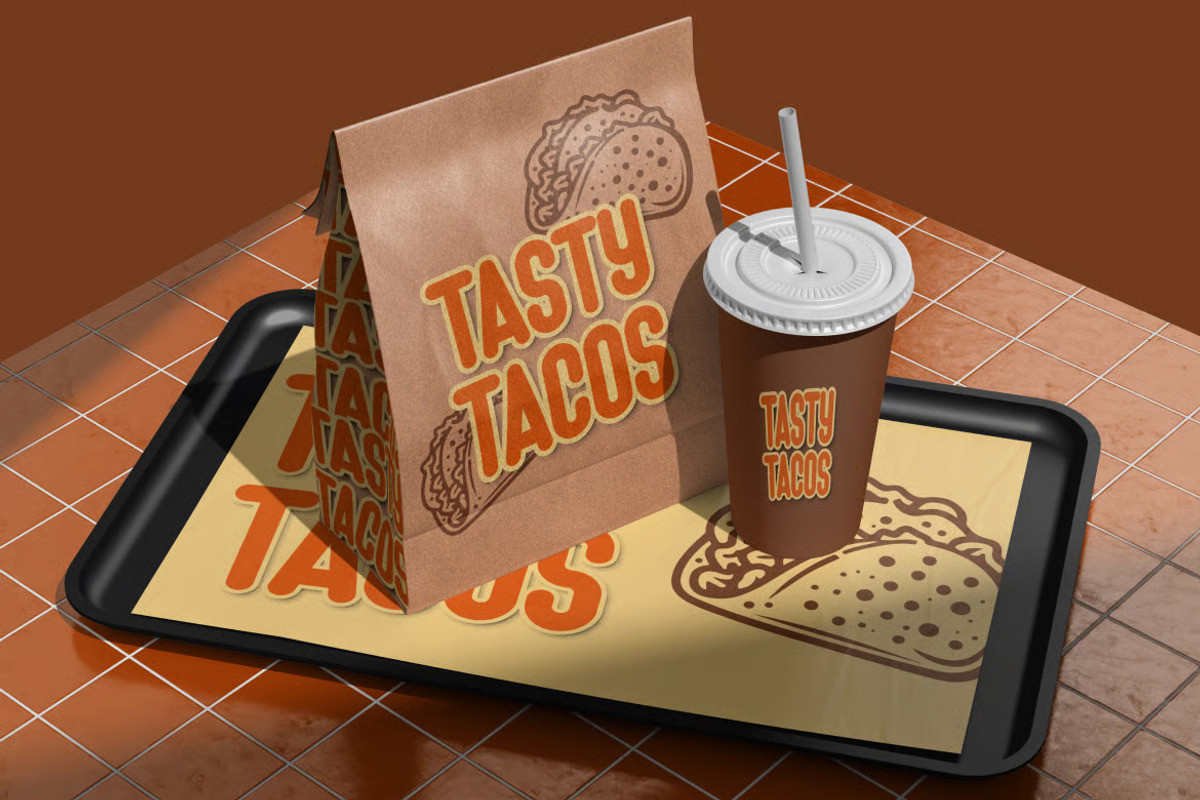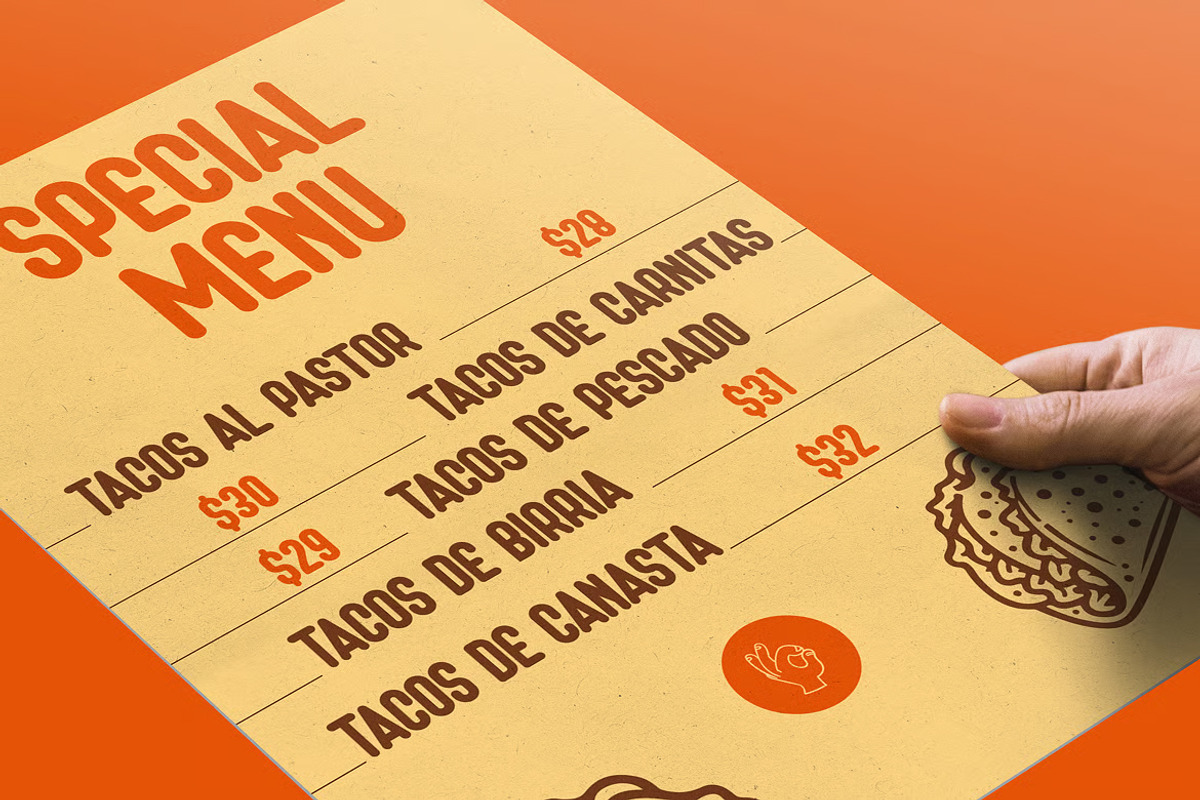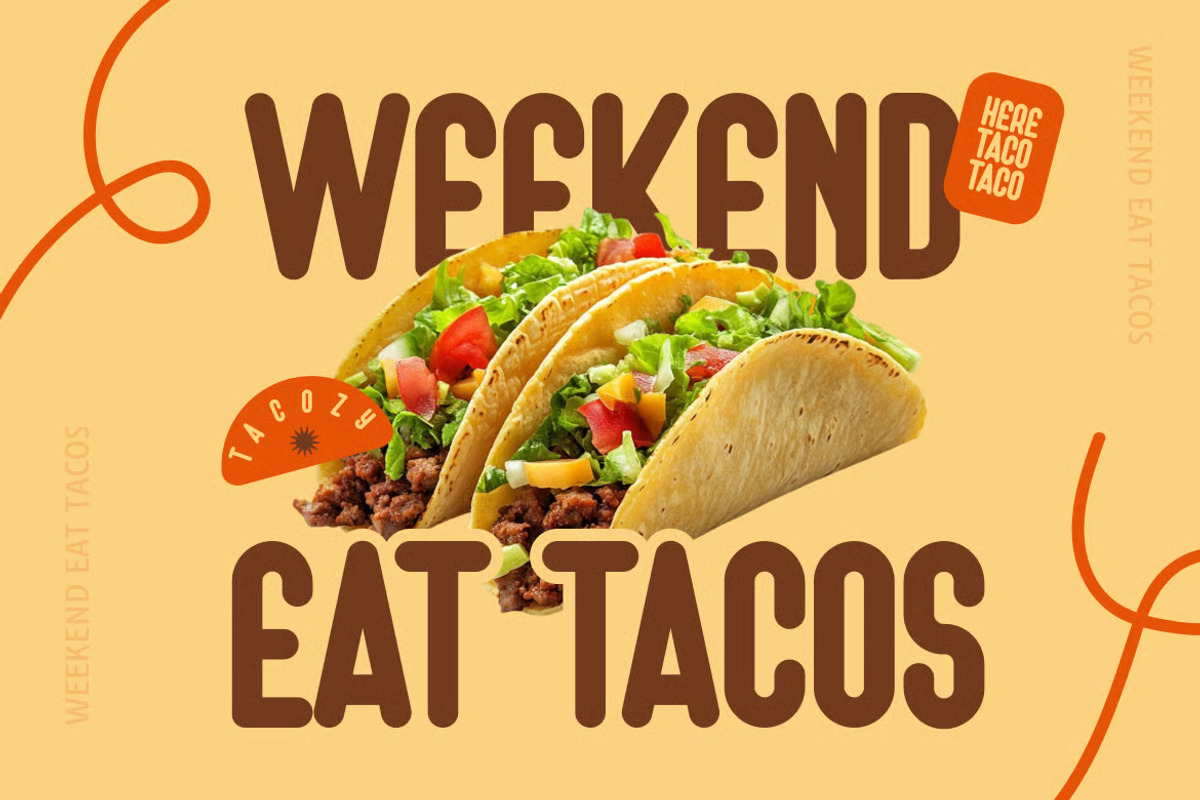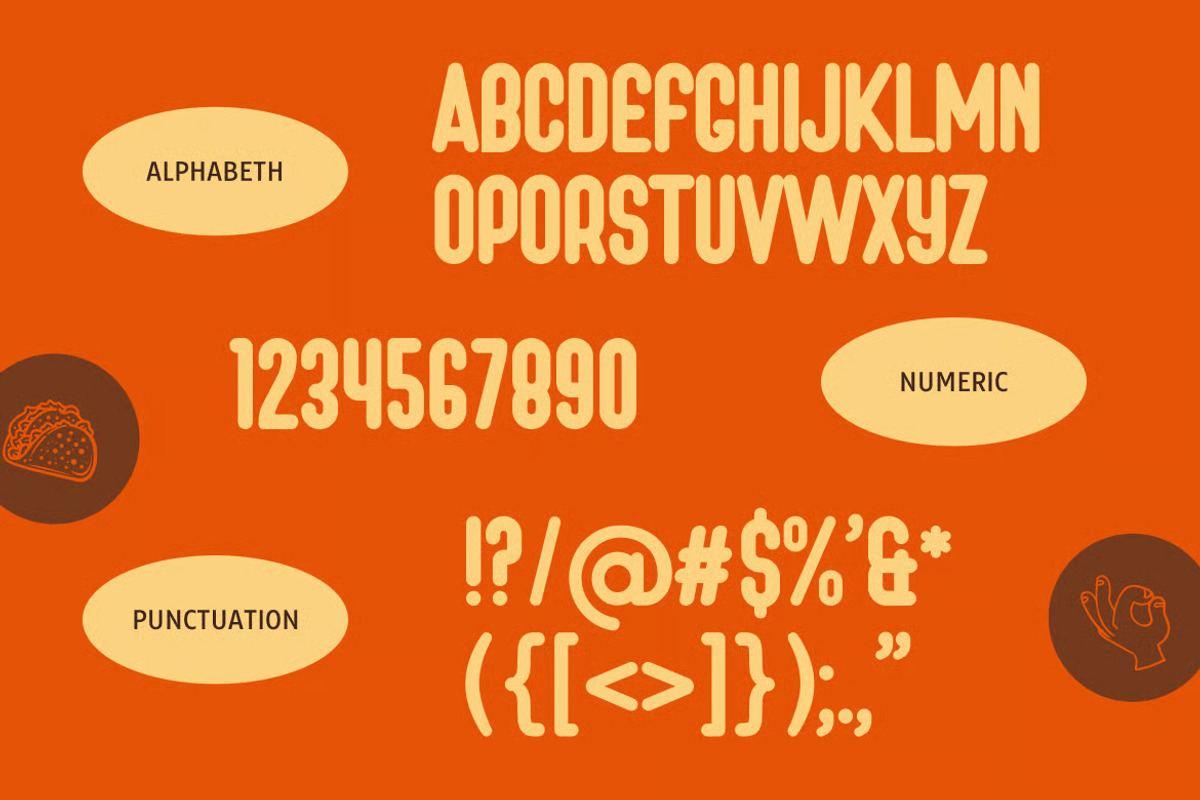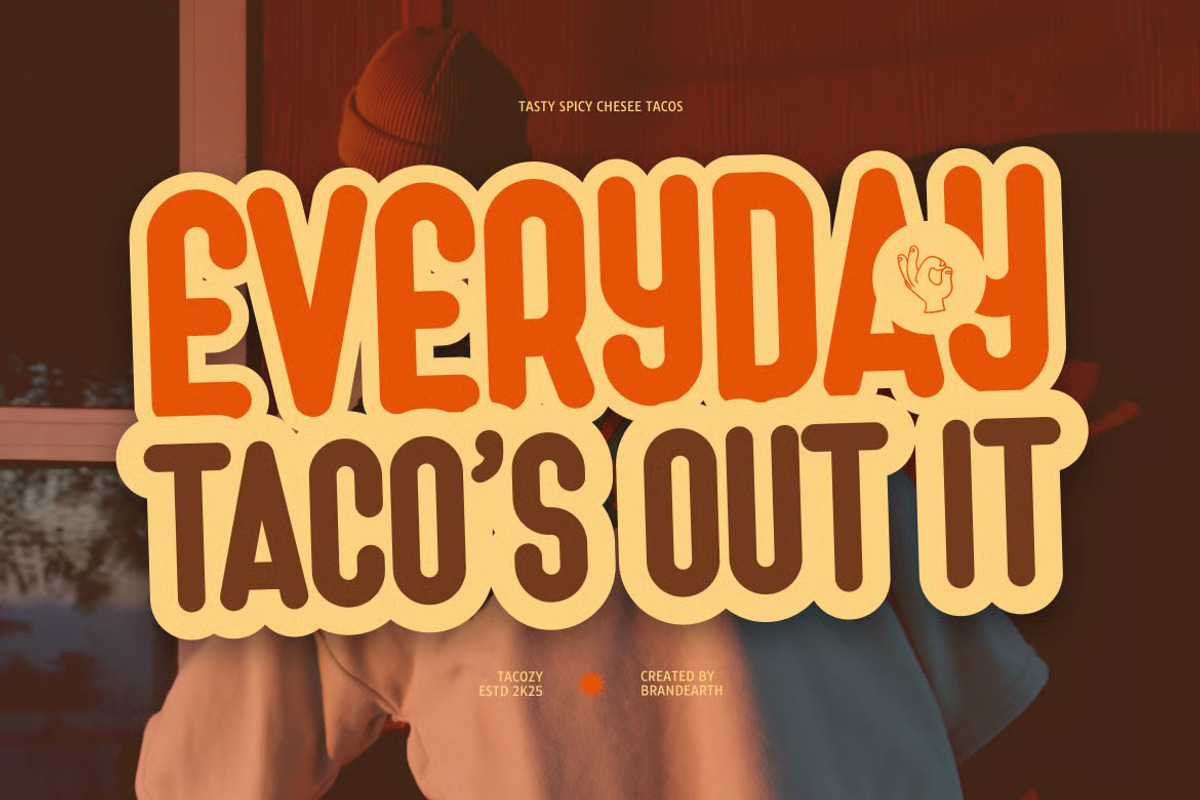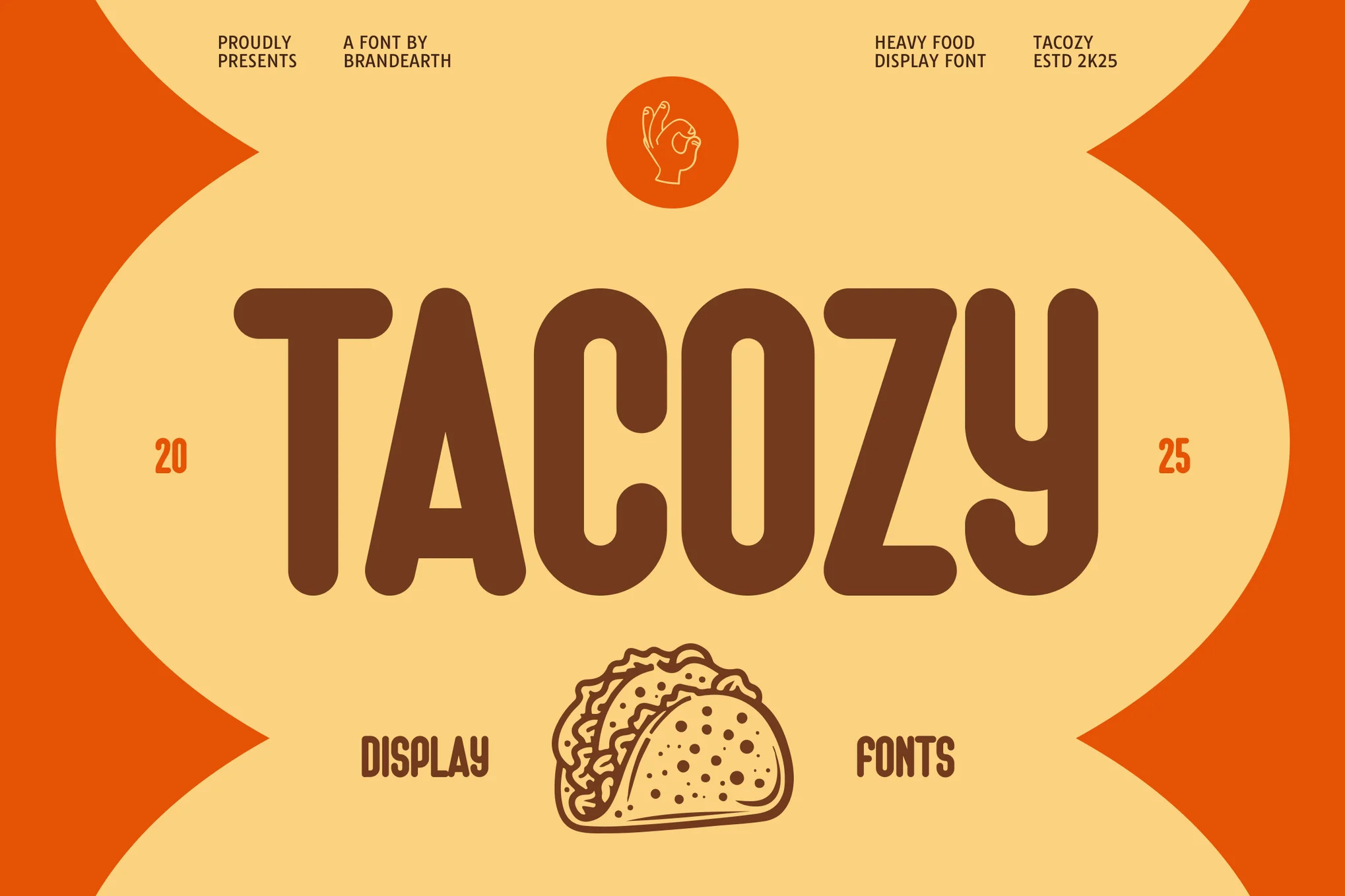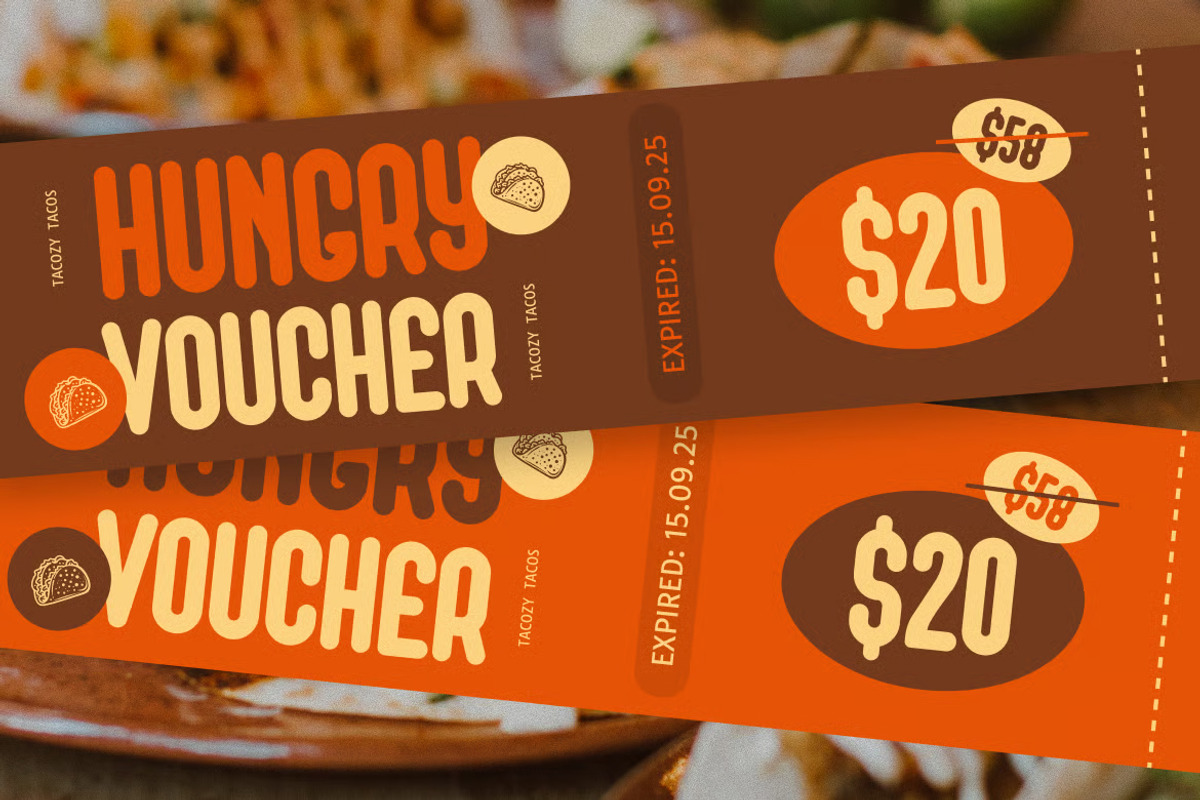
Tacozy – Playful Food Display Font
Tacozy is a bold, chunky display font that blends heavy rounded strokes with a warm, playful personality. Its food-inspired charm and retro-leaning character give it an instantly recognizable presence, perfect for brands that want to feel fun, approachable, and full of flavor. Tacozy includes a complete uppercase set, numerals, and punctuation, all built with balanced proportions to keep it strong yet easy to read at any size.
The letterforms in Tacozy are shaped with thick, confident curves and tightly knit spacing, giving the font a hearty, satisfying rhythm that feels both bold and friendly. This chunky structure makes it especially well-suited for food packaging, restaurant branding, and menu design that needs to grab attention while staying warm and inviting.
With its heavy weight and rounded charm, Tacozy bridges the gap between bold statement typography and playful, handcrafted appeal. It brings personality and energy to any design, making it ideal for street food posters, bakery signage, candy labels, and cheerful social media graphics.
Main Features
Numeral & Punctuations
Suitable For: food packaging, restaurant branding, cafe menu design, street food festival posters, candy and sweets labels, bakery signage, playful social media graphics, handmade product packaging, YouTube thumbnails, children's book covers, lifestyle blog headers, cheerful printable designs, quirky advertising campaigns, and creative retro-inspired layouts.